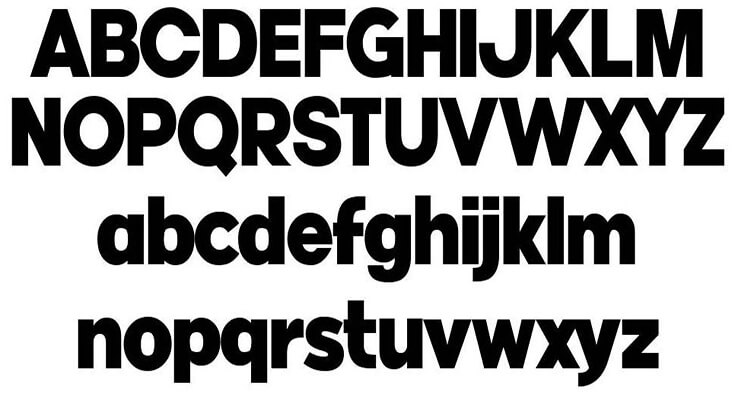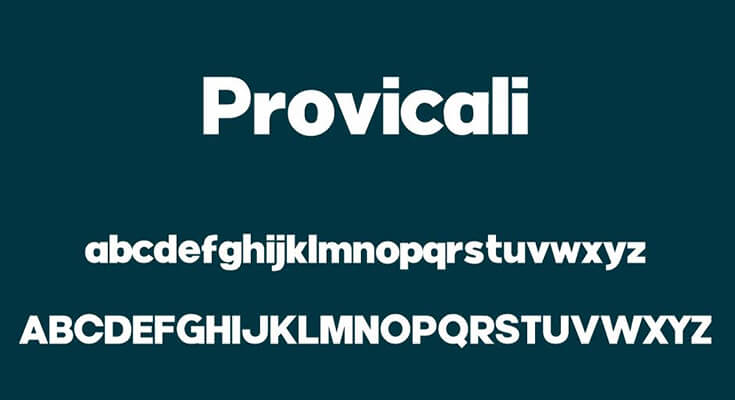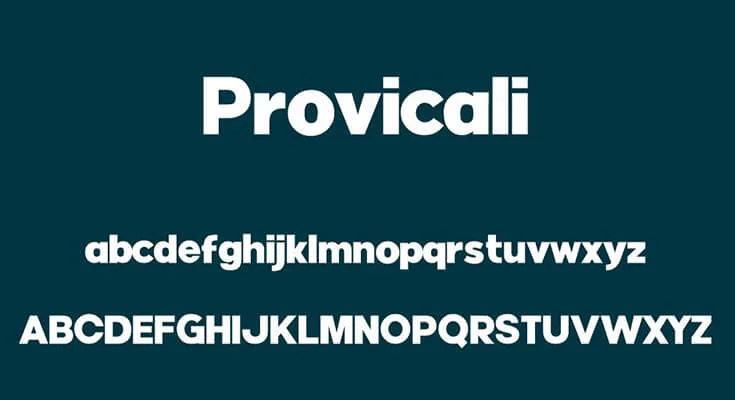
Provicali Font is a bold sans serif typeface that has a very clean, and modern letter design that makes it a great choice for all kinds of business and creative designs.
This font is perfect for branding and title designs. Chequered Ink is known as the primary designer of this display font.
Every reader will enjoy reading, and every writer will enjoy typing their characters. Because all roles are handled professionally with full passion.
If you work with a lot of social media posts, banners, taglines, logos, branding, product packaging, book covers, t-shirt printing, and blog headers, this font will definitely come in handy.
They also have plenty of potential for mixing with other typefaces.